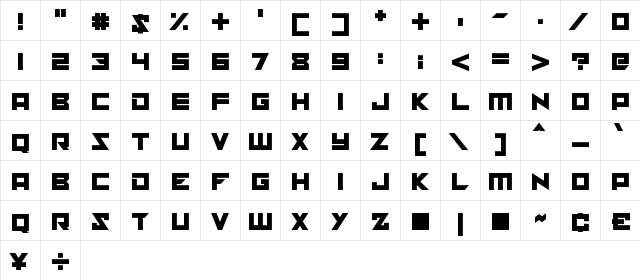
solaria Regular
| Designer | Darrell Flood |
Design Context for solaria Typeface
solaria is a composed and adaptable typeface that performs quietly and consistently across a wide range of design contexts.